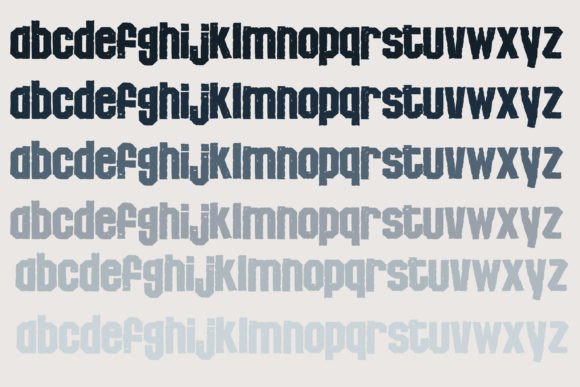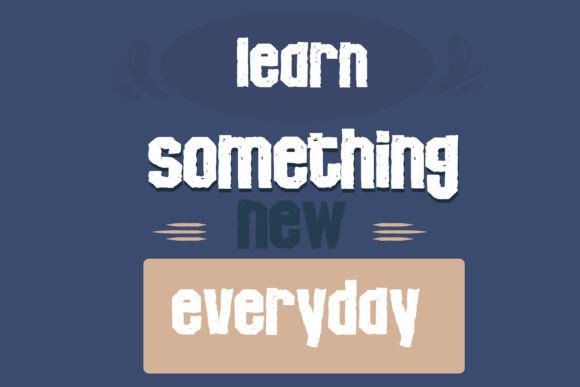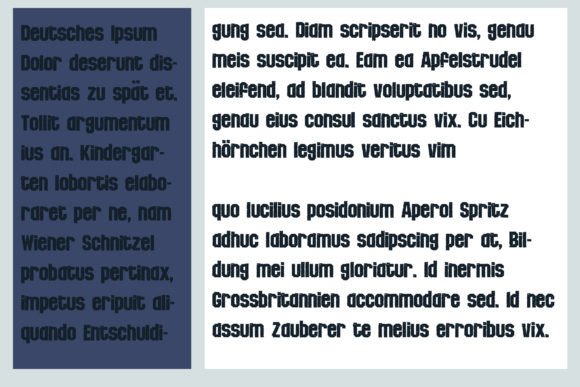
Introduction to Jerky Font
As a designer, there’s nothing quite like the thrill of stumbling upon a new font that sparks creativity. It’s like stumbling upon a hidden treasure in a dusty old archive, or discovering a secret ingredient that elevates a recipe to new heights. For me, that moment came when I found the Jerky Font – a hand-crafted sans serif that’s as quirky as it is charming.
With its squatty, textured look, Jerky Font is the perfect addition to any design project that needs a touch of personality. And the best part? It’s a high-quality, free download that’s waiting to be unleashed on your next creative project. Whether you’re working on a wedding invitation, a birthday card, or a social media campaign, Jerky Font is sure to bring a smile to your face and a touch of whimsy to your design.
As a valuable design resource, Jerky Font offers a transparent background that’s perfect for layering and manipulating in your favorite design software. So why not give it a try and see what kind of magic you can create with this delightful, one-of-a-kind font?
Key Features of Jerky Font
- High-quality, hand-drawn design perfect for creative projects
- Font size: 20-30 points, ideal for titles and headings
- Resolution: High-resolution design, suitable for print and digital use
- Unique, jerky motion-inspired design elements add a creative touch to any project
Honest Review: Jerky Font
As a designer, I’m always on the lookout for high-quality fonts to elevate my creative projects. Recently, I had the chance to try out the Jerky Font, and I must say it’s been a game-changer. The free download was a bonus, making it an excellent addition to my design resource library.
- ✨ Unique, hand-drawn aesthetic that adds a personal touch to any design
- ✨ Available in various weights and styles, making it versatile for different creative projects
- ⚠️ Limited character set, which may not be suitable for extensive text-based designs
- ⚠️ Some letters may appear a bit pixelated, which could be distracting in high-resolution designs
Overall, I’m impressed with the Jerky Font’s unique style and versatility. While it may have some limitations, it’s an excellent choice for designers looking to add a creative twist to their projects. If you’re willing to work within its limitations, the Jerky Font can be a valuable addition to your design resource library.
The Jerky Font is a unique and versatile design resource perfect for creative projects. It offers a high quality, free download that can be used in a variety of applications.
To get the most out of Jerky Font, experiment with different font sizes, colors, and alignments to find the look that works best for your design project. You can also combine Jerky Font with other design elements to create a unique and eye-catching design.
The Jerky Font is perfect for a variety of creative projects, including graphic design, digital art, and web design. It’s also a great choice for social media graphics, blog posts, and other online content.